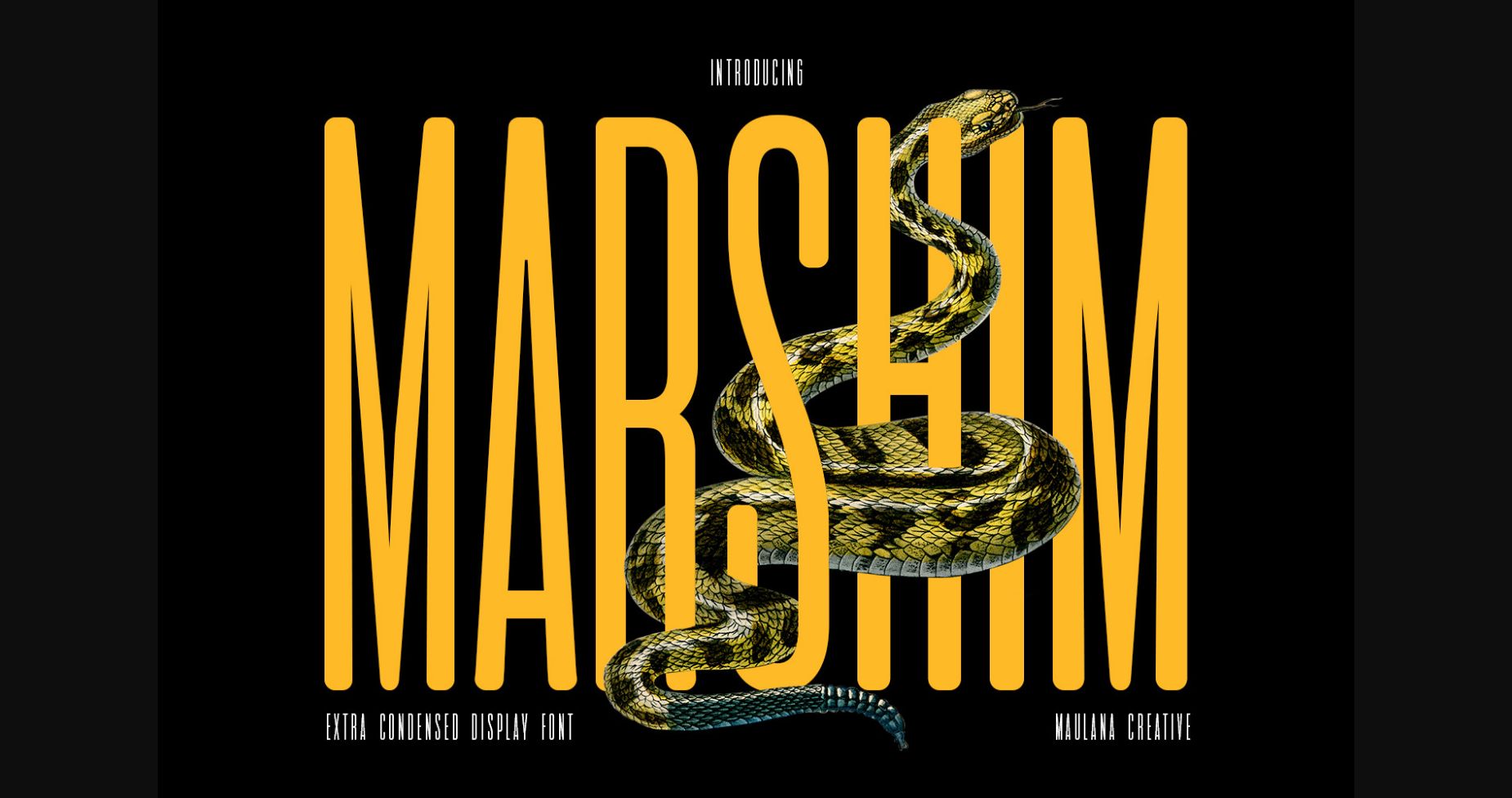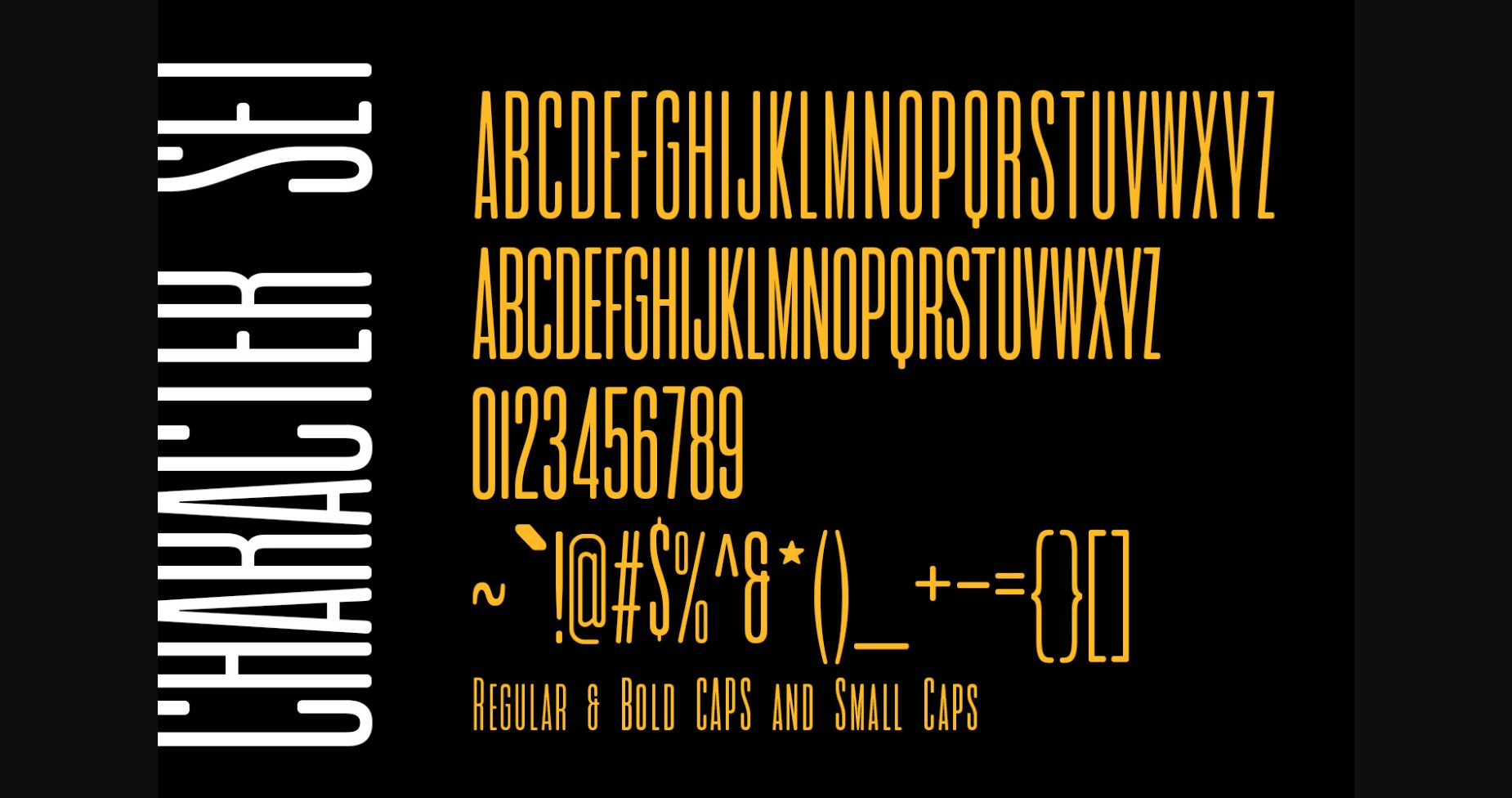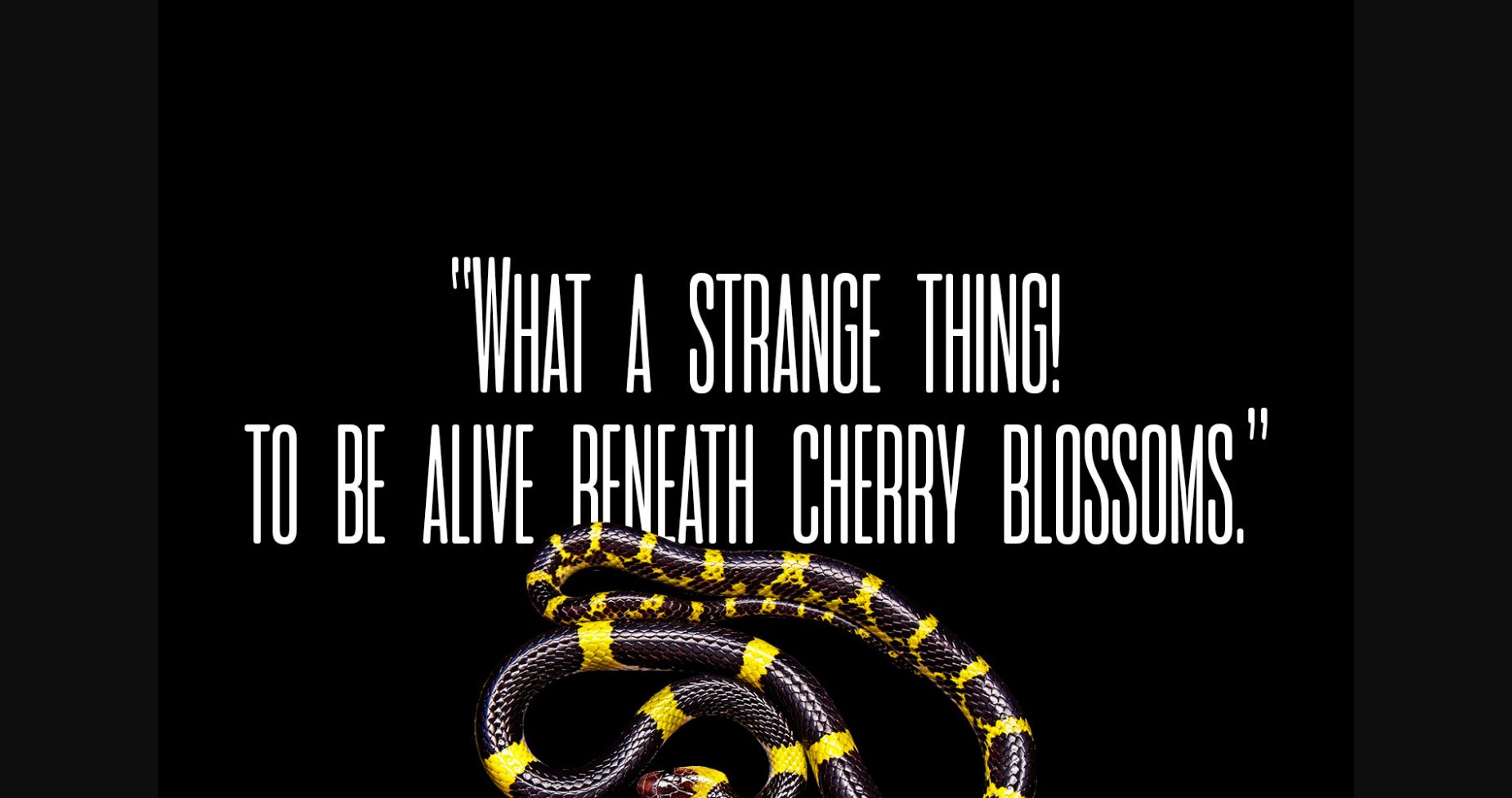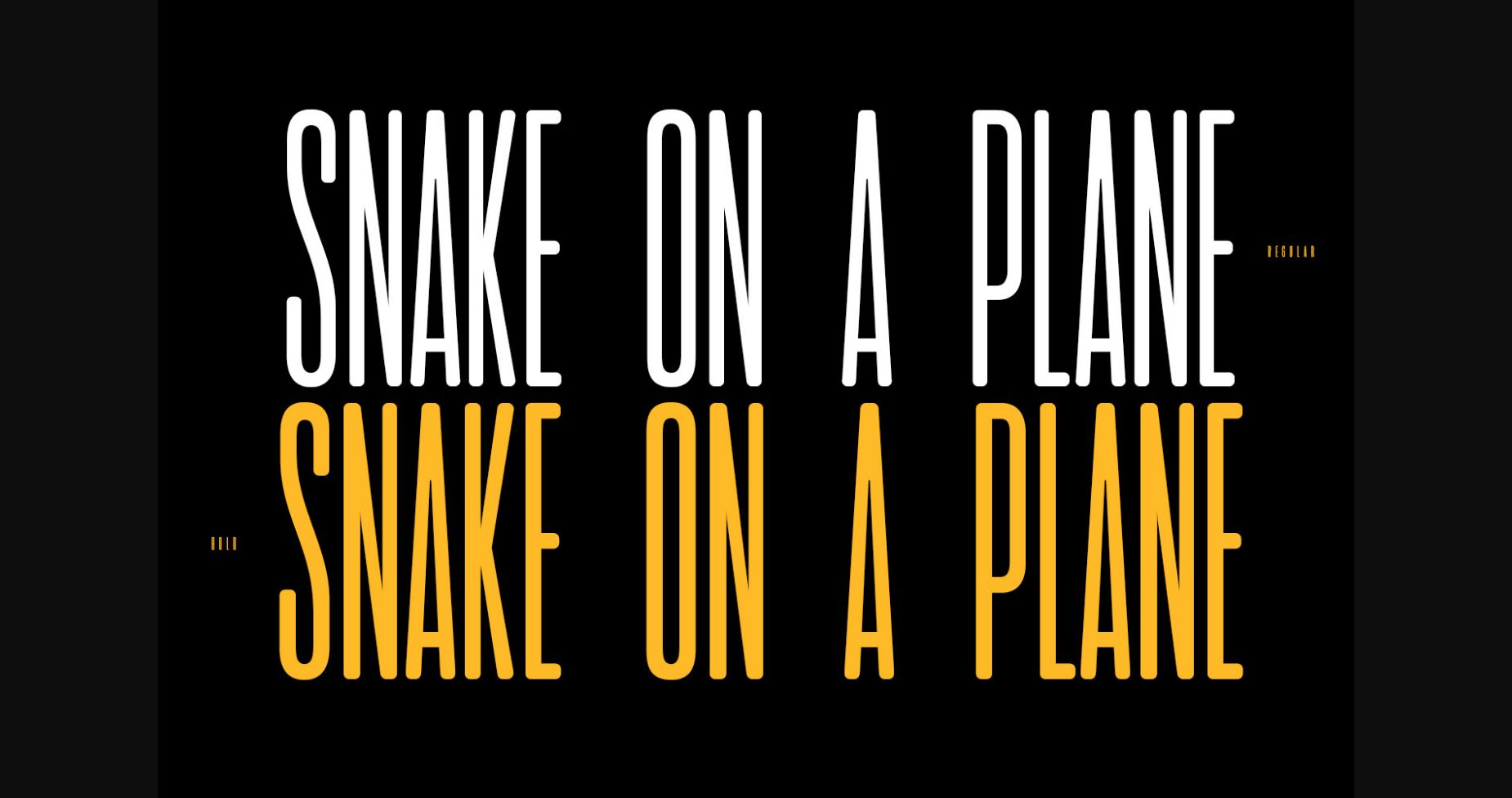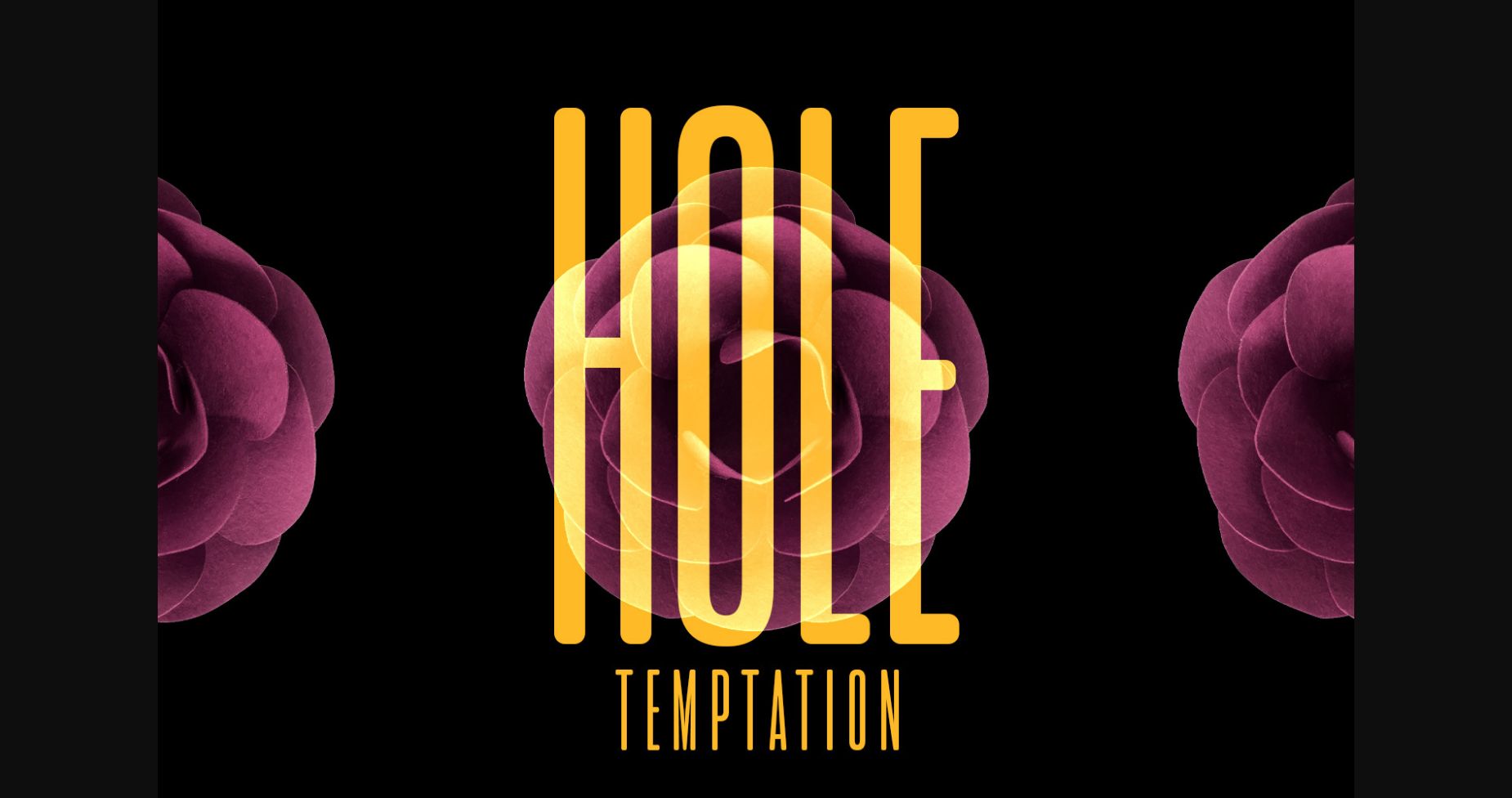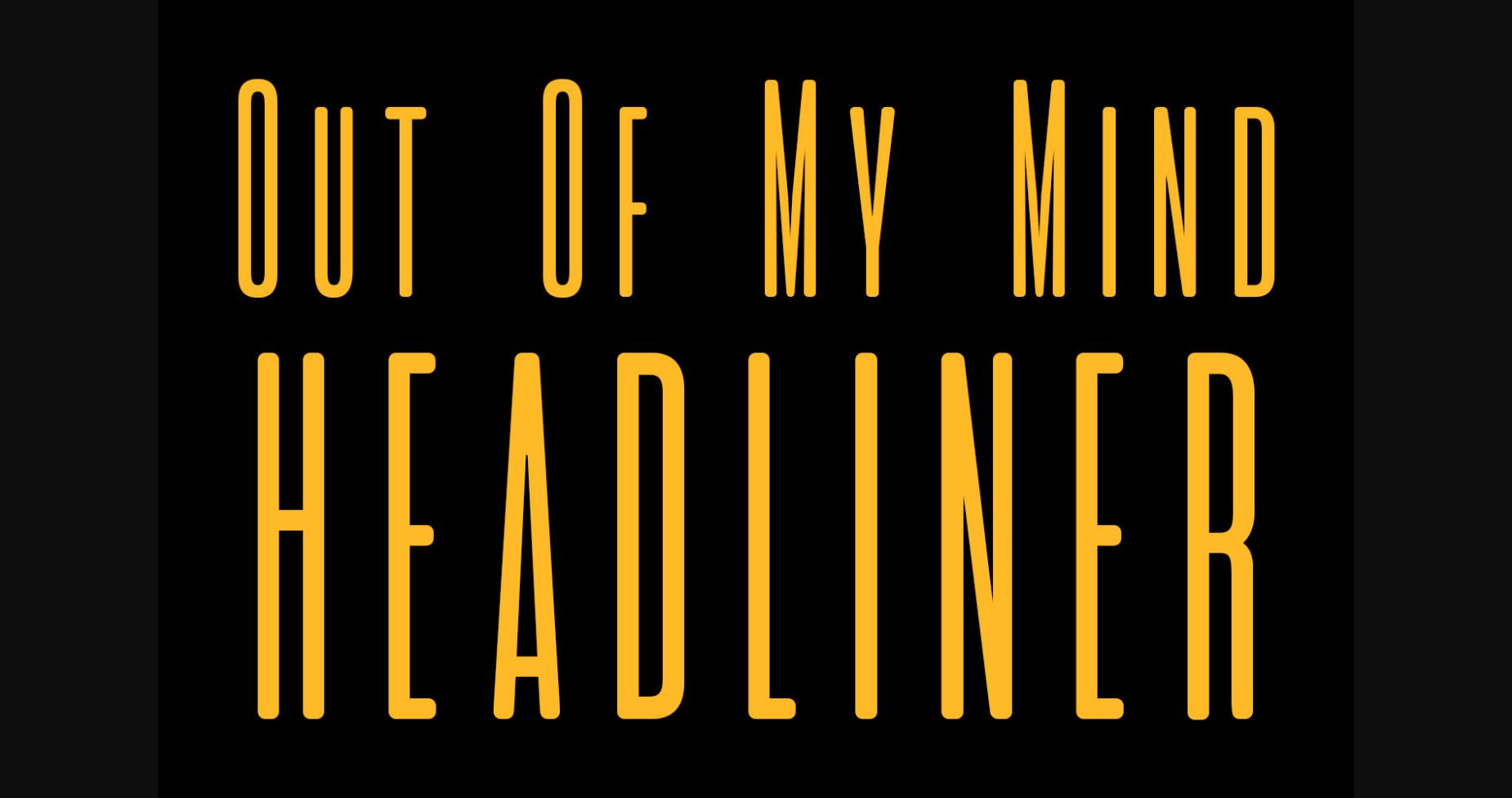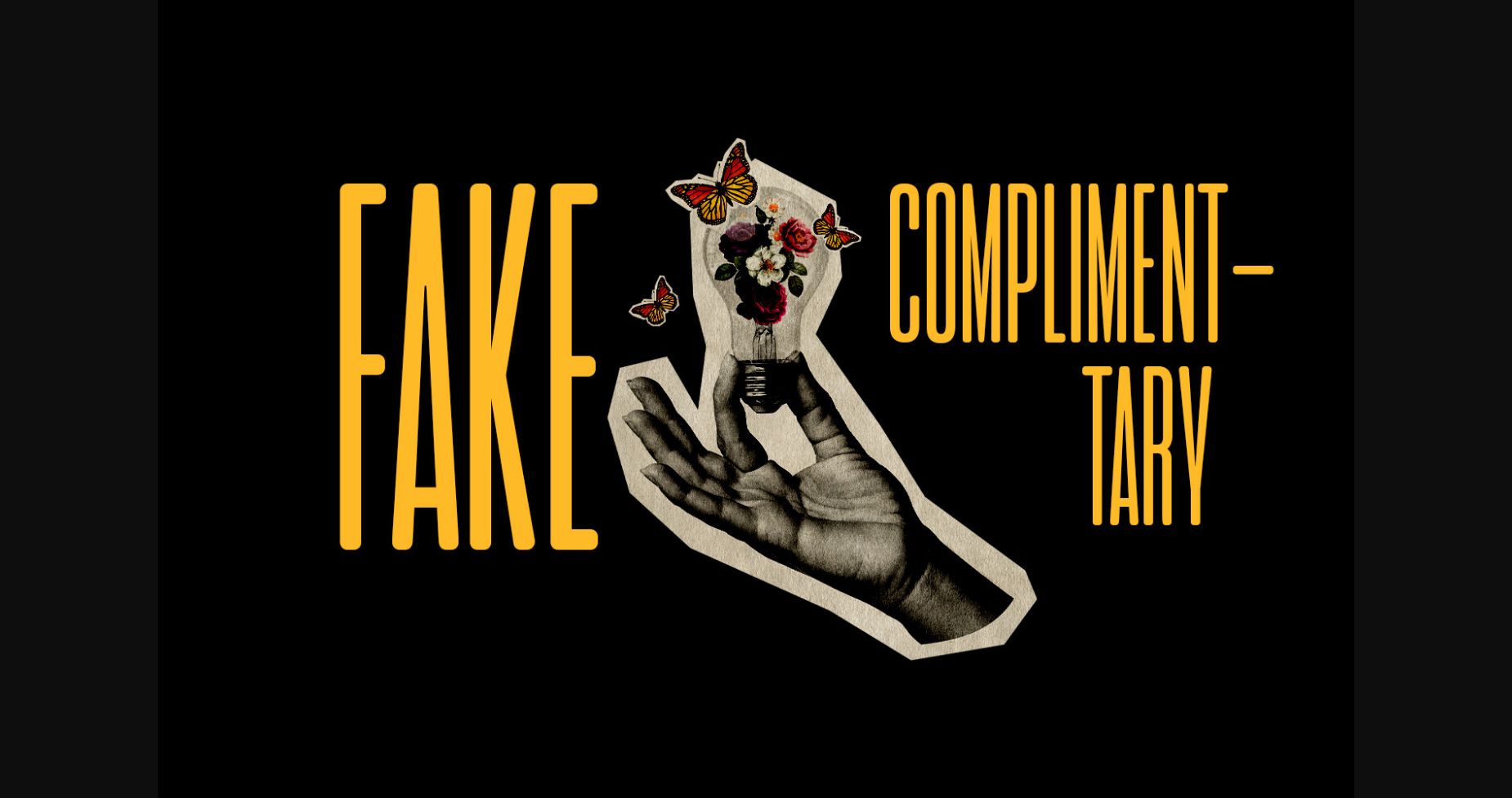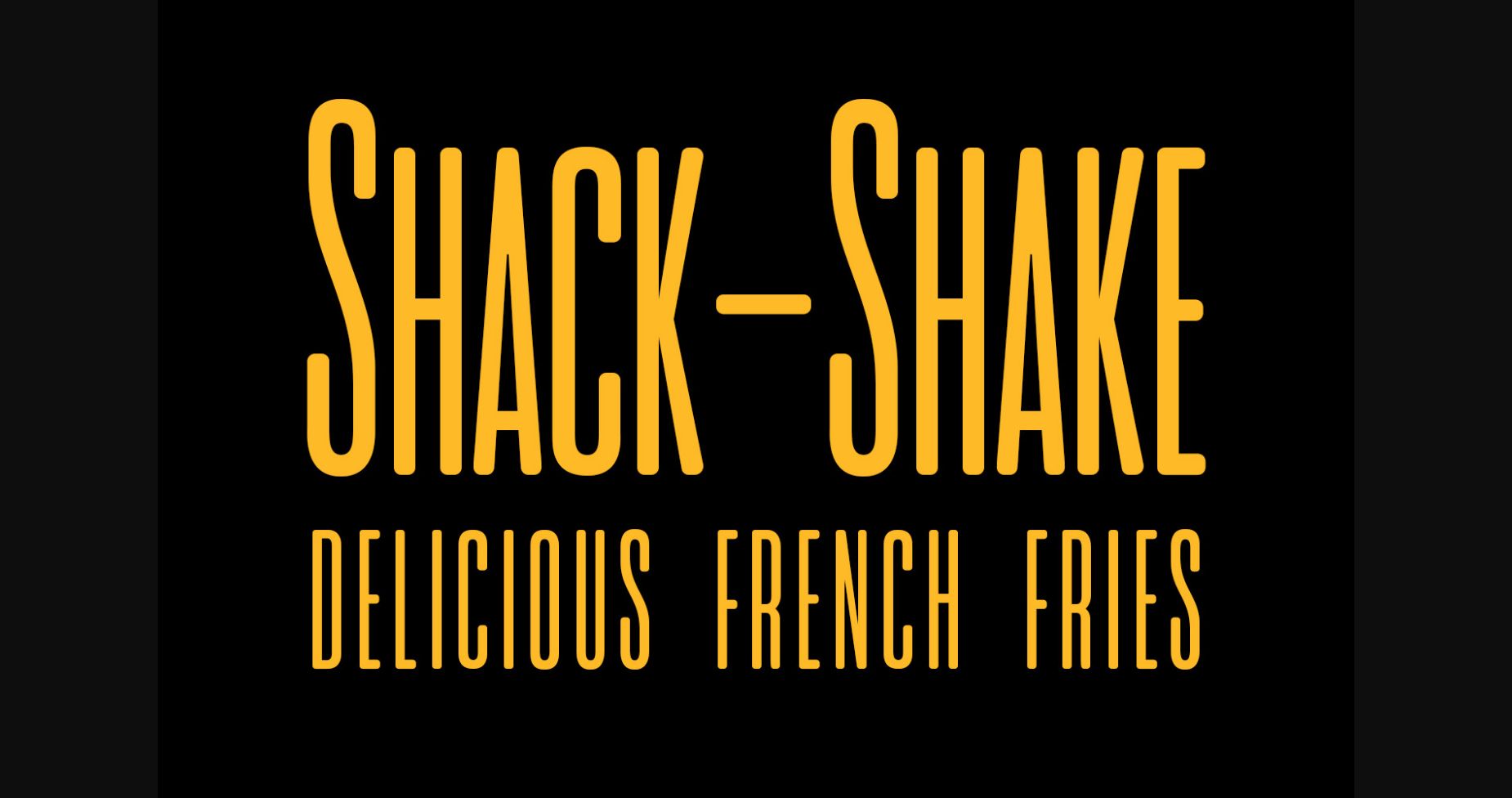
Marshim is a modern and captivating sans-serif font featuring tall letters. This font style can be used for headlines, body copy, and branding and its unique design adds a touch of drama and style to any project.